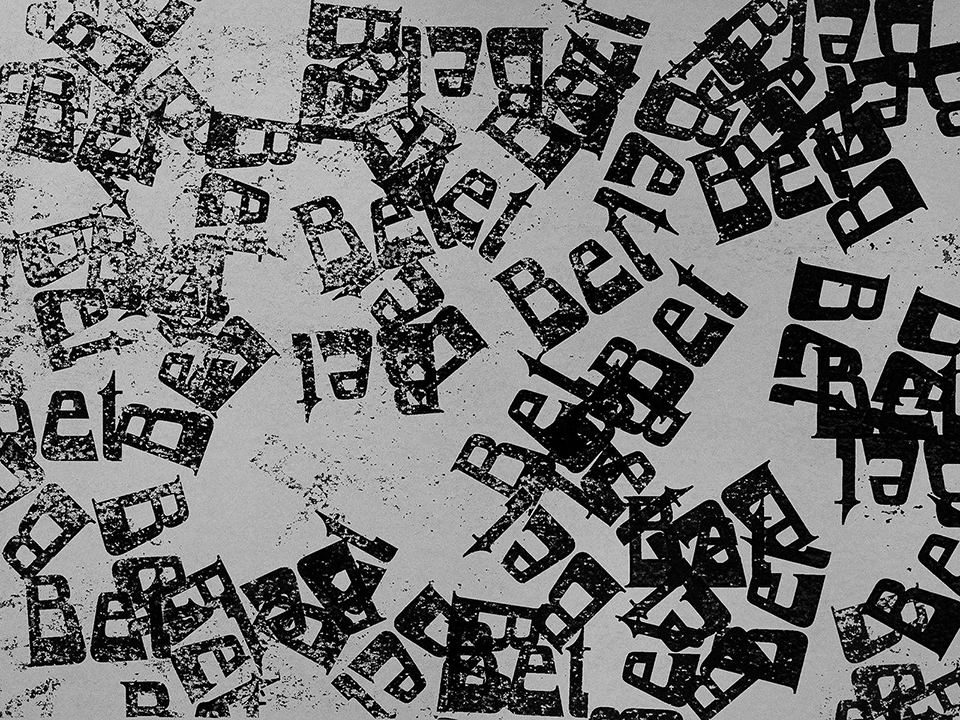
Players
About Players
Players is a blackletter typeface, originally drawn for the sports and fashion magazine of the same name. It is built like a logotype: set entirely in capitals, with bold black mass, a tight rhythm, and pointed terminals. The letter P was designed first, as a team-style monogram, drawing on the graphic language of caps, stitched patches, and jerseys, before this structural principle was extended to the rest of the alphabet. It is also rooted in the legacy of mid-nineteenth-century American Tuscan wood type, adapting these historic ornamental display forms to a distinctly contemporary use. Some may also read its arcs and points as echoes of the solemn language of Gothic architecture, while others will see in them the sharp edge of punk graphics.
Players is therefore as polyvalent as it is distinctive, and in all cases delivers immediate impact in block form: heavy strokes take the lead, while carefully sized counters preserve clarity despite the density. With over 600 glyphs and broad language support, it performs across multiple formats and disciplines, while remaining unapologetically singular.